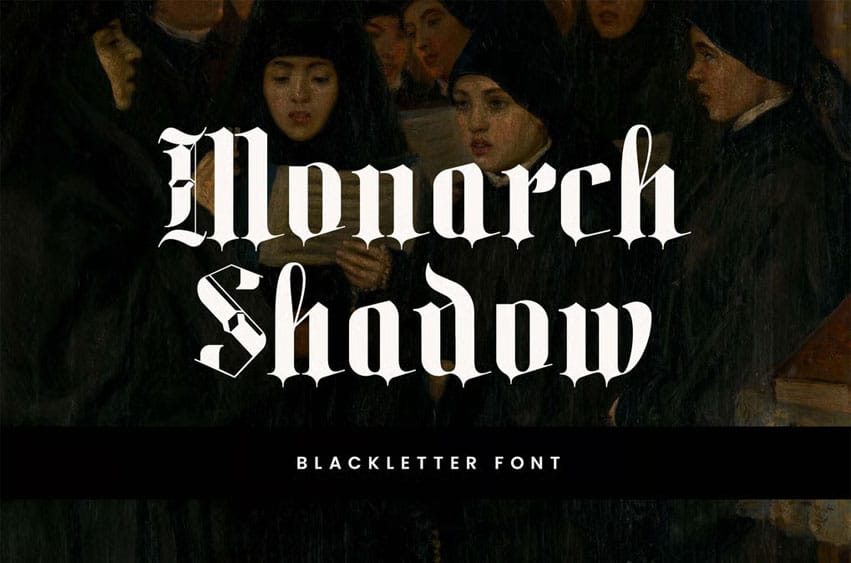
Monarch Shadow Font Blackletter font that feels beautiful, classy, elegant, and modern. This font is perfectly suited for a wide variety of projects, such as signatures, stationery, logos, weddings, typography quotes, magazine or book covers, website headers, branding, packaging design, and more. Also, fashion-related branding or editorial design displays both masculine and feminine qualities.